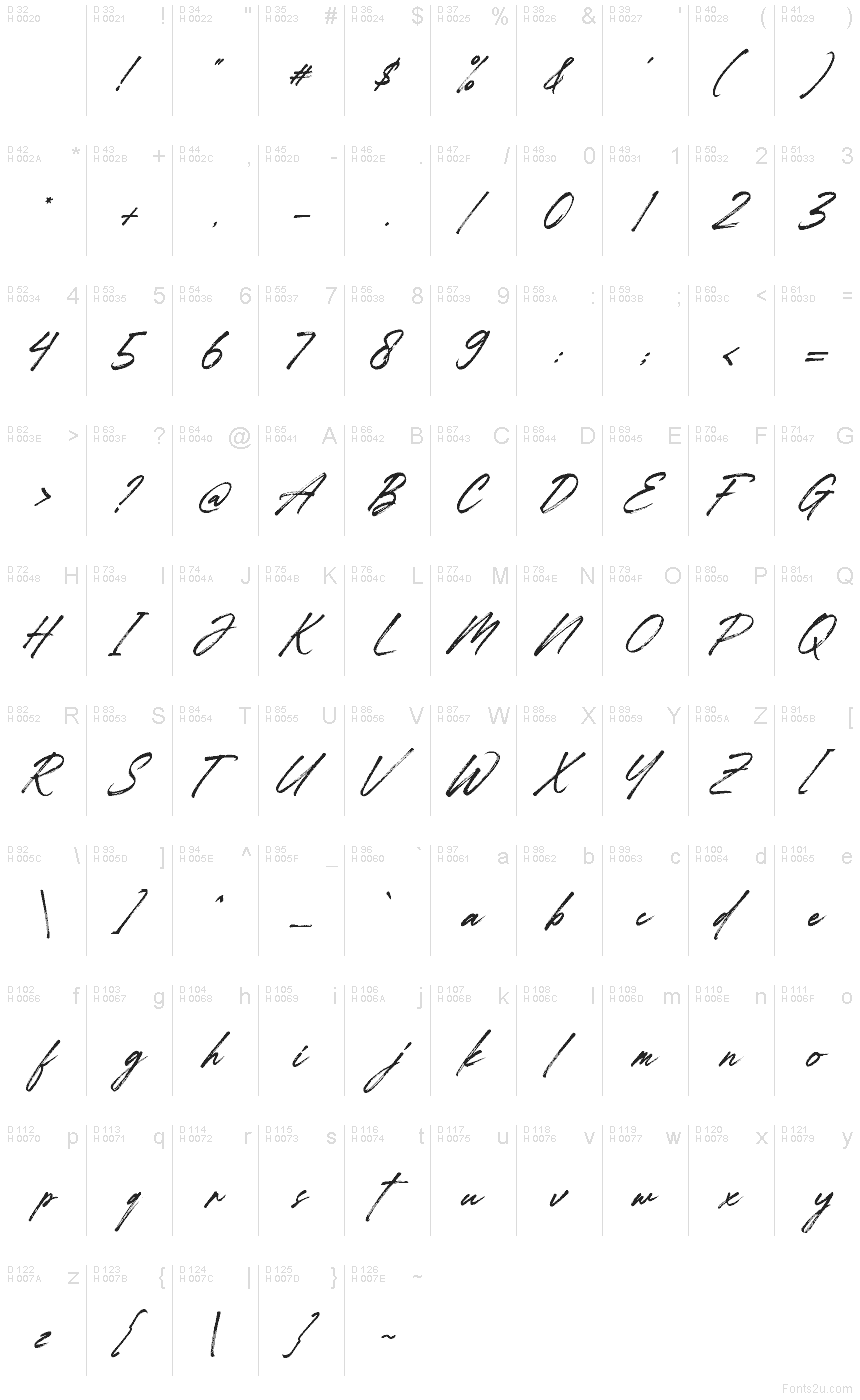
Starlight Alaska
Starlight Alaska font by Subectype and Orenari is a free brush font featuring calligraphic strokes with an expressive, modern script formation. The letters have a casual elegance highlighted through textured appearance and light weight. A condensed arrangement and artisanal look of the characters complete the unique tone of this typeface.
Use Starlight Alaska for websites, labels, packaging projects, invitation cards, posters, murals, photo overlays, greeting cards, trailer titles, book covers design or advertising. The brush style of text makes it pop on social media posts like Instagram pictures and Facebook stories.